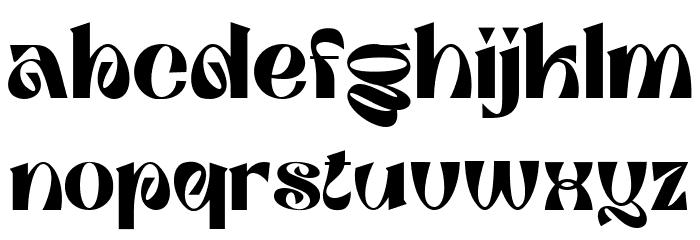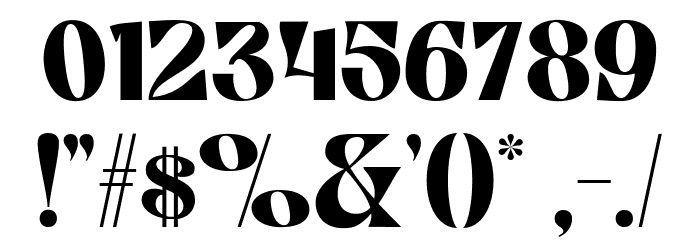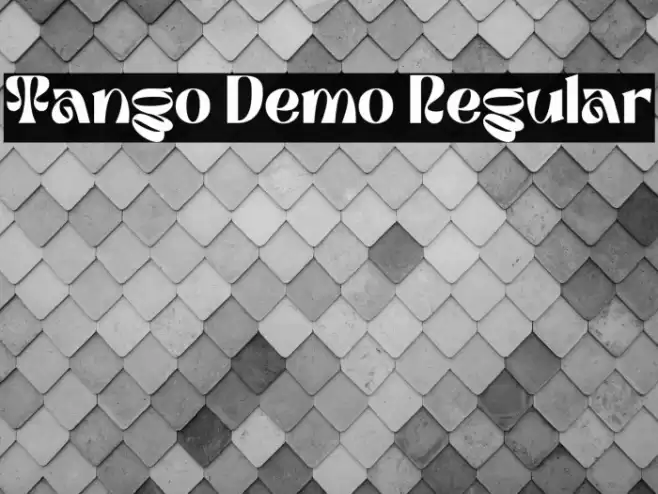
Tango Demo Regular
This font features a bold and decorative style with a unique flair. The characters are designed with a high contrast between thick and thin strokes, giving it a dynamic and eye-catching appearance. The uppercase letters have a strong presence with their wide and bold forms, while the lowercase letters maintain a consistent style that complements the uppercase. The numerals are equally bold, ensuring they stand out in any design. Special characters are creatively designed, adding to the font's overall decorative appeal. This font is perfect for projects that require a touch of elegance and boldness.
A bold, decorative font with high contrast and unique character designs.
- Proposed Projects: Ideal for posters, branding, headlines, and any design that requires a striking and elegant typeface.
- Contrast: High
- Overall Style: Decorative
- Use Case: Headlines, Logos, Posters